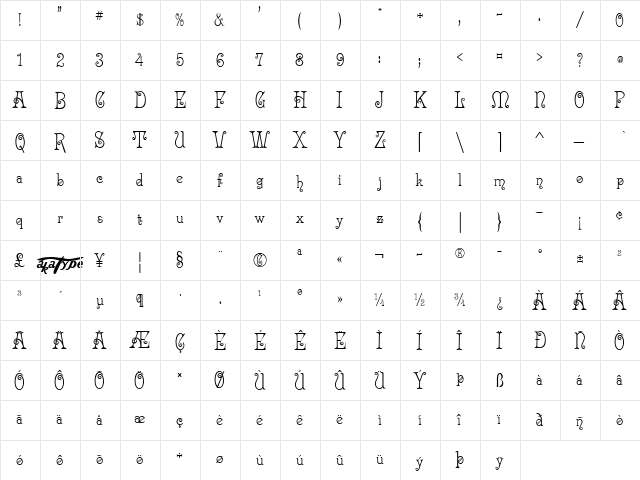
akaArcade Regular
Regular · James Milligan akaArcade digitized by James Milligan for akaType ·
Design Context for akaArcade Typeface
akaArcade is a composed and adaptable typeface that performs quietly and consistently across a wide range of design contexts.